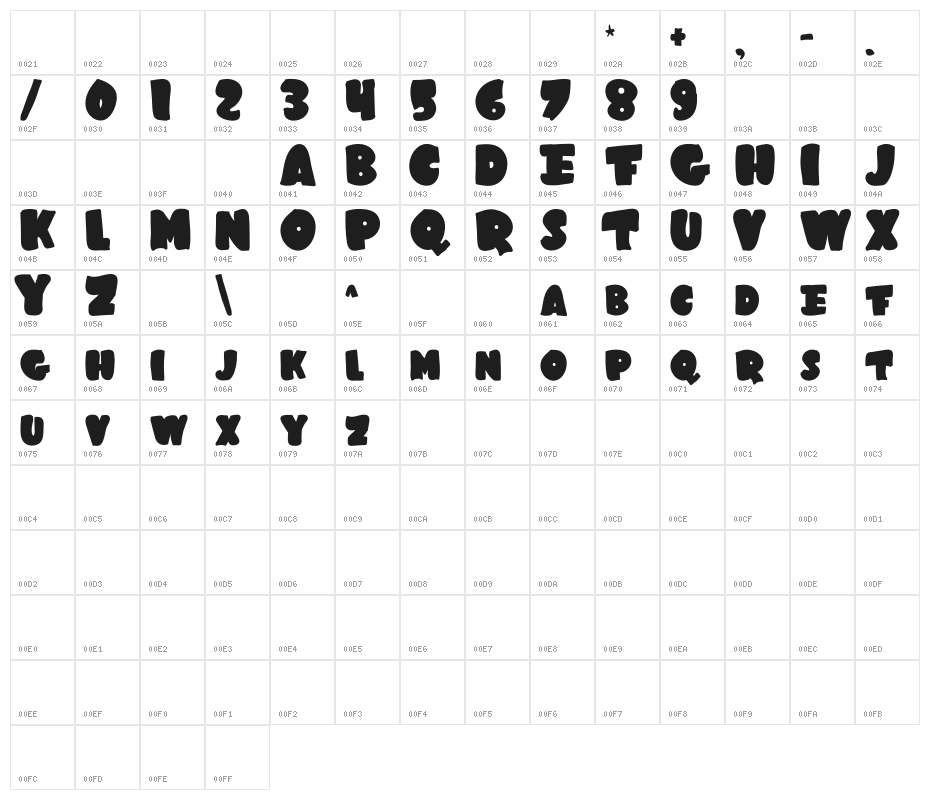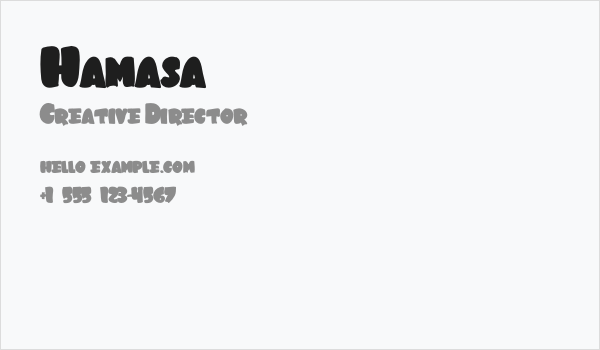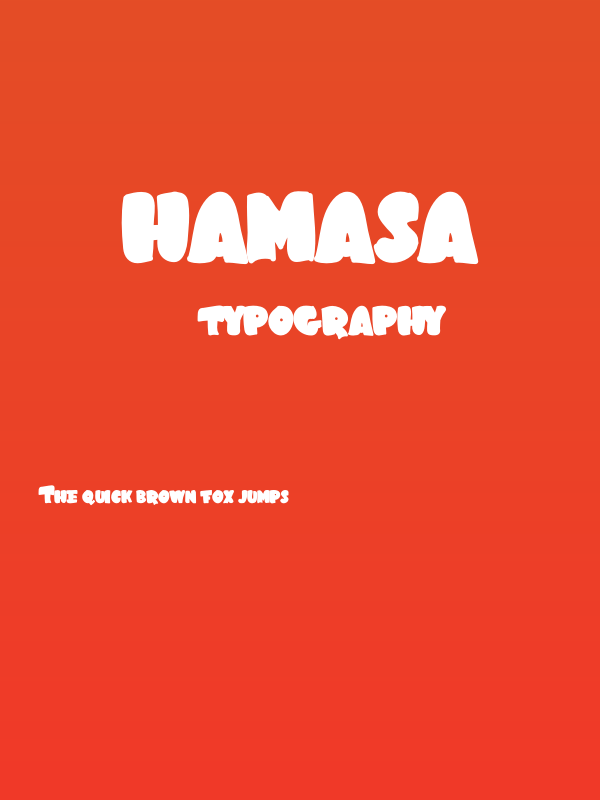
Hamasa Font
Hamasa Description
This font features a bold and playful design with thick, rounded characters that convey a sense of fun and creativity. The letters are uniformly bold, with a slightly irregular shape that adds a whimsical touch. The characters are closely packed, giving a compact appearance. The numbers and special characters maintain the same playful style, making the font suitable for projects that require a lively and energetic feel. Its boldness ensures high visibility, making it ideal for eye-catching designs.
| Proposed Projects | Ideal for children's books, playful branding, posters, and party invitations. |